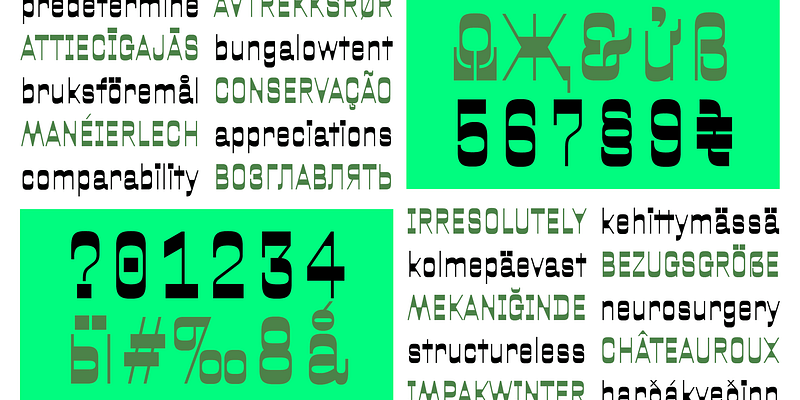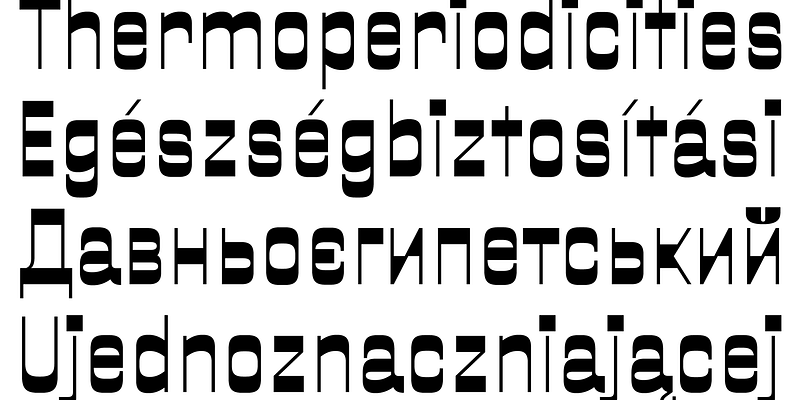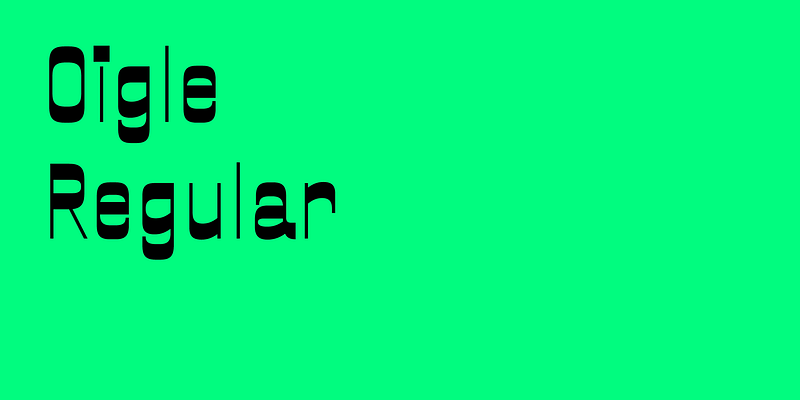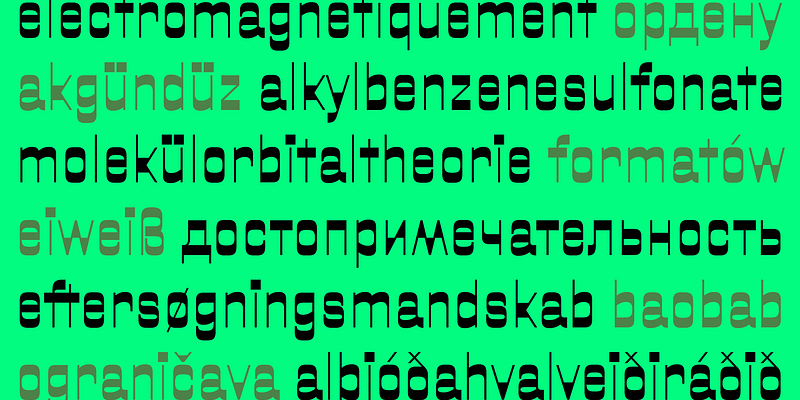
Oigle invites the reader to look at Cake Sans from a different perspective by turning its structure on its head. Well, on its side, to be precise. Pieter added contrast to Cake Sans by making the horizontals heavier instead of adding weight to the verticals (the traditional method). This gave rise to a reverse-contrast typeface – “rise” being the operative word because it creates an illusion of three-dimensionality, as if the letters rise from the background. Not like Darth Vader, but rather like clever typographic constructions. The unusual contrast adds a soupçon of Wild West and Ringling Bros. to the typeface. Oigle comes in one style and supports Latin Extended including Vietnamese, and Cyrillic.
Pieter van Rosmalen founded CakeType in 2004 primarily as a boutique foundry to distribute some of his early typefaces. In 2008, Pieter started Bold Monday together with Paul van der Laan. The type foundry’s initial retail collection merged the CakeType library and Paul’s typefaces. However, some of Pieter’s older type designs didn’t really fit the Bold Monday library and remained in “the vault”—not Prince’s legendary vault, but just as cool and mysterious. CakeType reopened its online doors in 2022 to serve as a vehicle for those hidden gems. This dedicated space allows them to shine in all their quirky glory.